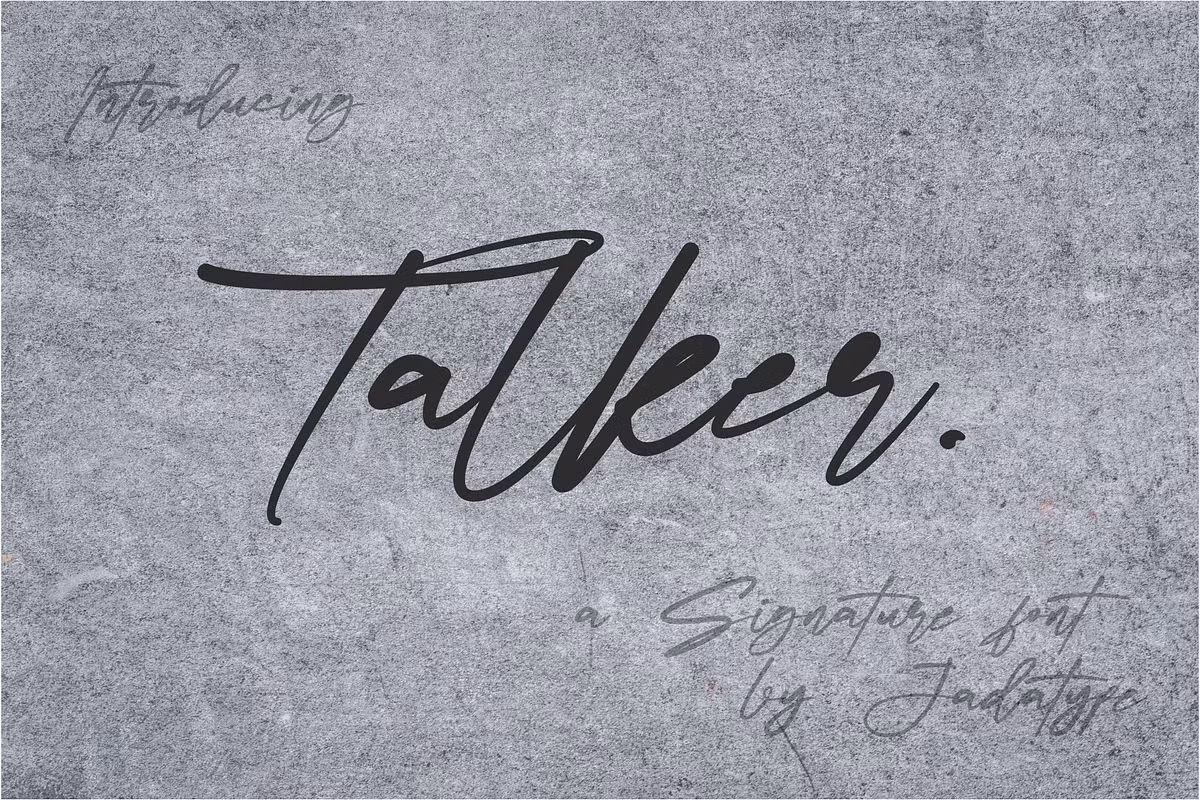
Talker Font Free Download
Talker Font Free Download is a bold and expressive display typeface designed to make your words stand out. Perfect for headlines, social media graphics, branding, and posters, this font adds a confident, modern voice to any creative project.
With strong letterforms and a clean, contemporary feel, Talker Font Free Download brings clarity and impact to your typography. Whether you're designing for a bold campaign, a trendy brand, or digital content that needs to grab attention, Talker delivers the visual power to make it happen. Test it out in your mockups today to experience its energy and style—then upgrade to a commercial license when you're ready to go live.